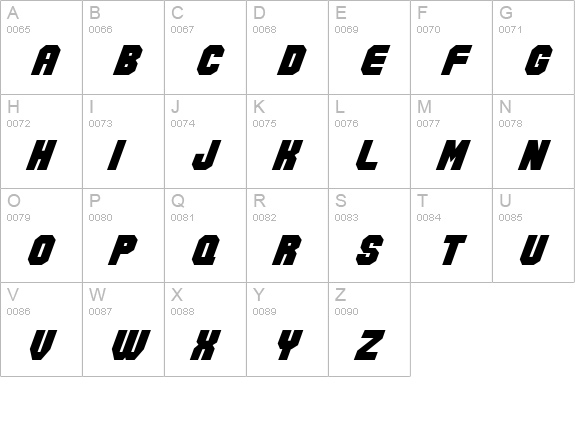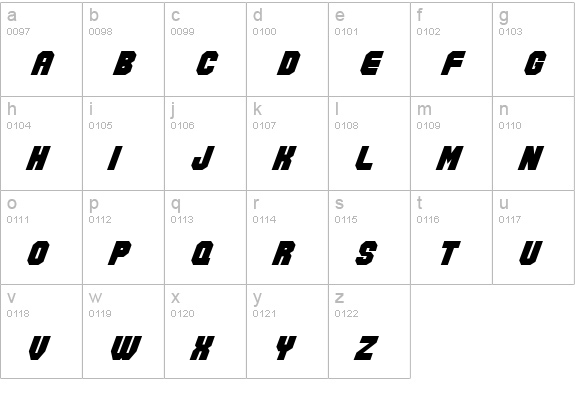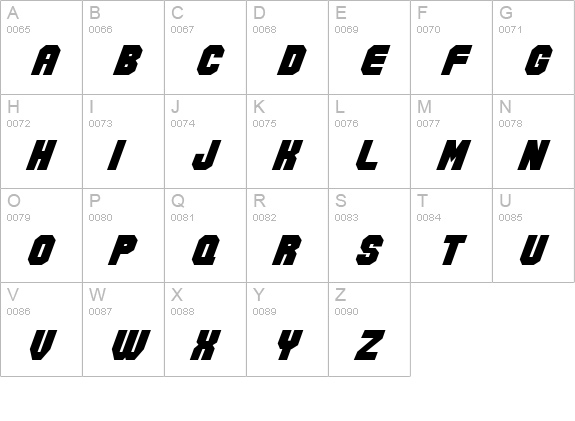
Action Force Normal Font Details
Action Force Normal is the standard, neutral variant in the Action typeface family \xE2\x80\x94 well suited to general body text, paragraphs, and standard typographic work.
Action Force Normal is a dynamic and bold font that exudes energy and strength. Perfect for titles, headlines, and display purposes, this font commands attention and makes a powerful statement. With its clean lines and modern aesthetic, Action Force Normal is versatile and can be used in a variety of design projects. The best part? Action Force Normal is available for free download at FontsMarket.com. Whether you're working on a poster, website, or branding project, this font will add a touch of action and excitement to your designs. Don't miss out on this opportunity to elevate your creations with the striking presence of Action Force Normal.